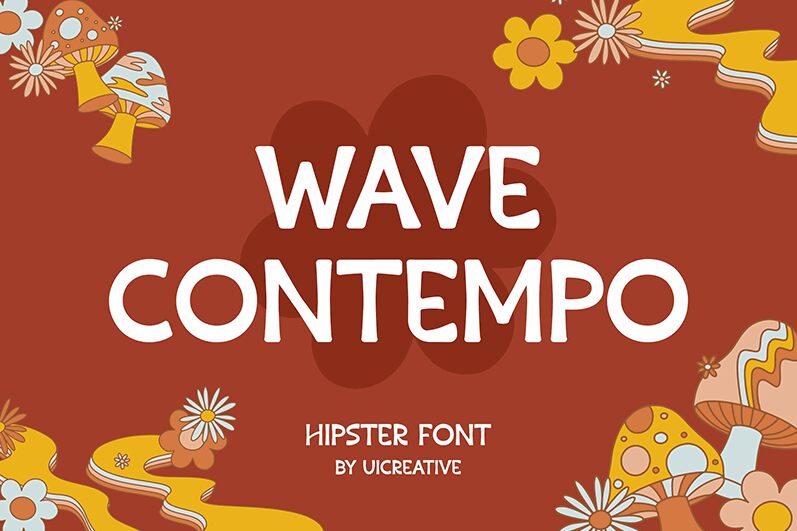
WaveContempo
Wave Contempo, a captivating display font crafted by UI Creative, exudes a harmonious blend of modern elegance and fluid artistry. Its distinctive wave-like letterforms dance across the page, evoking a sense of movement and dynamism. The font's seamless strokes and organic curves create a visually striking aesthetic, ideal for demanding the attention of viewers. Whether used in headlines, logos, or editorial layouts, Wave Contempo's captivating presence is sure to leave a lasting impression.
Versatile in nature, Wave Contempo's versatility shines through its ability to adapt to diverse design contexts. Its bold, attention-grabbing style lends itself perfectly to branding and marketing materials, where it can elevate the visual impact of logos, posters, and packaging designs. Furthermore, the font's fluid elegance makes it a compelling choice for editorial pieces, book covers, and fashion-forward applications, where its unique character can truly shine.